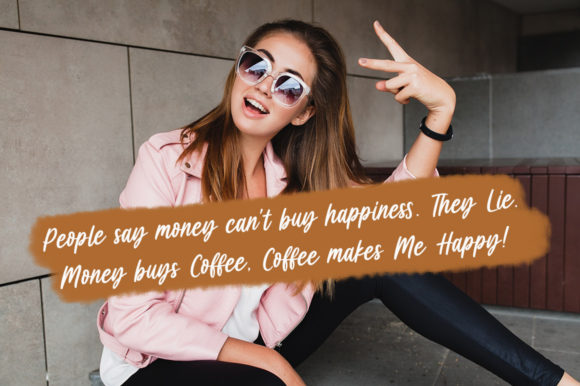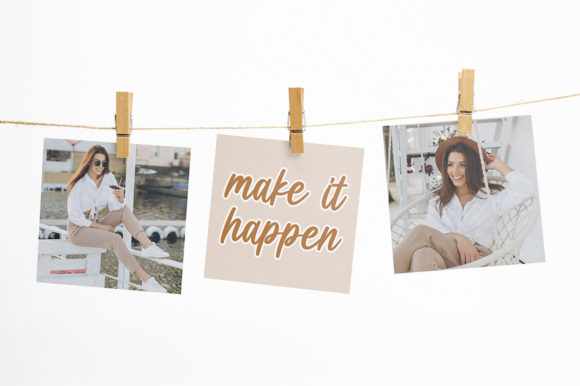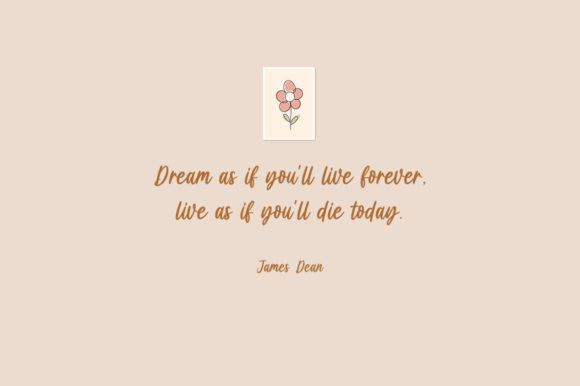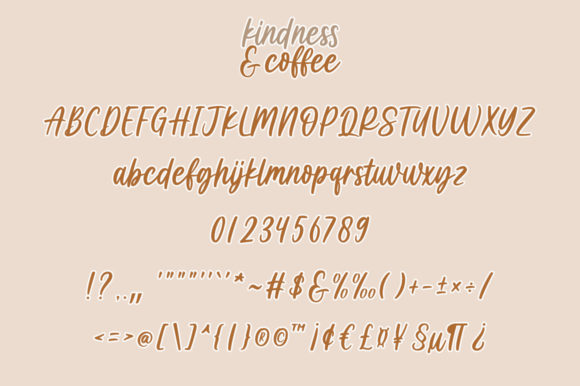
Kindness & Coffee Font
Kindness & Coffee is an elegant handwritten font, featuring a lovely flow. This font was particularly crafted for those who need a beautiful and refreshing look to their designs.